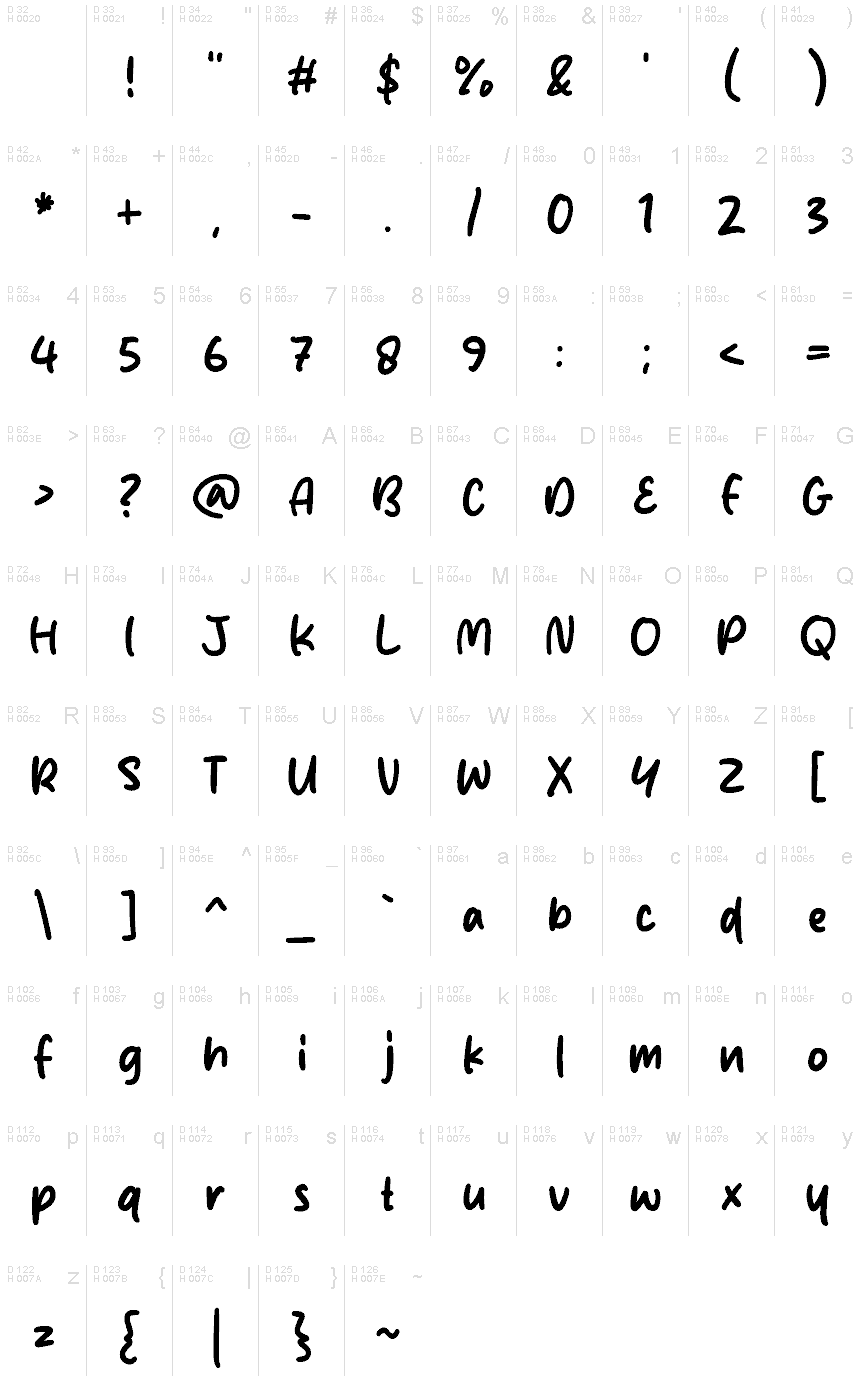
Midnight Sunday
Midnight Sunday font by MJType is a casual and expressive handwritten font that embodies a relaxed atmosphere. Taking on a modern script style, the letters imitate the natural movements of handwriting, which gives this font an authentic feel. Its fluidity and readability make it a great pick for contemporary applications.
Introduce it to branding designs like logo titles and business cards or use it on packaging projects at is especially visual on beverage labels. Other uses include quotes, headlines and subheadings, invitation cards, social media posts, apparel design elements, stickers/labels, etc. This free handwritten font is applicable in both print and digital environments for the best results.